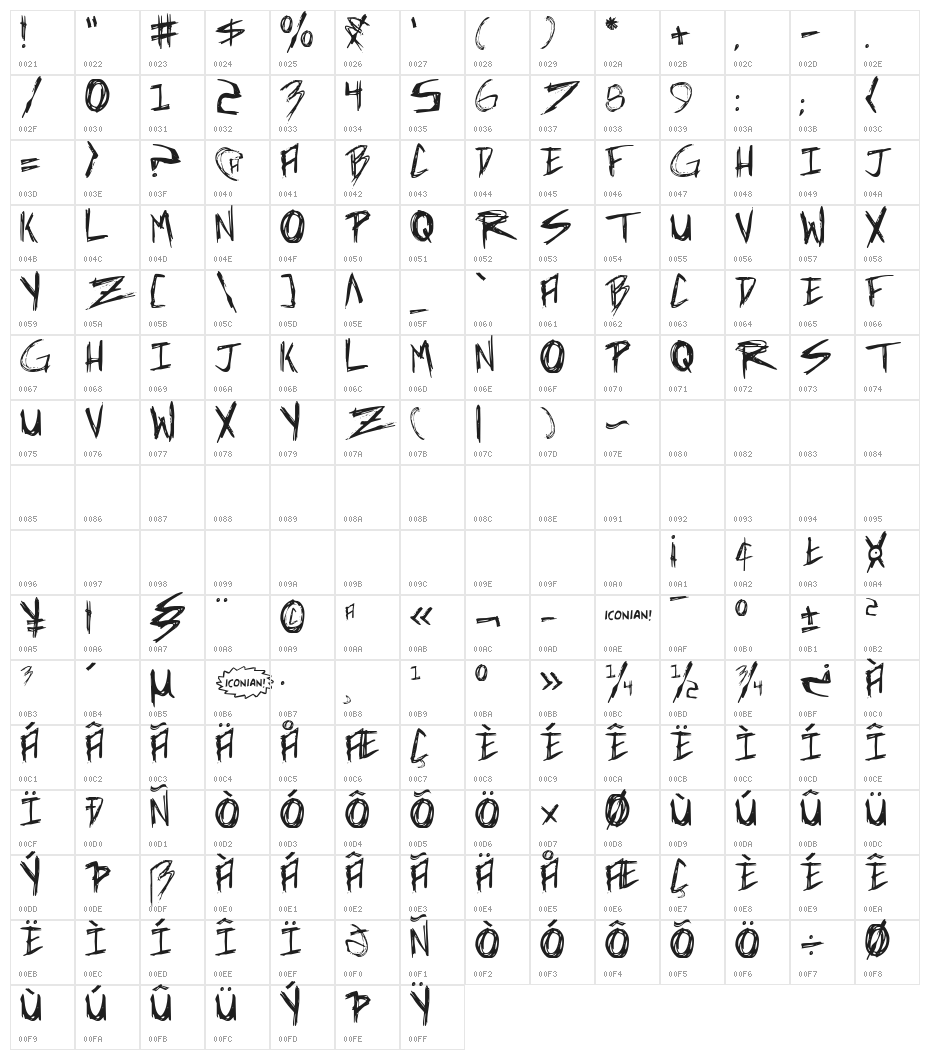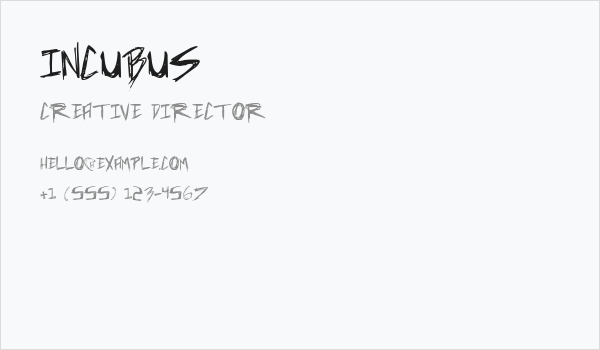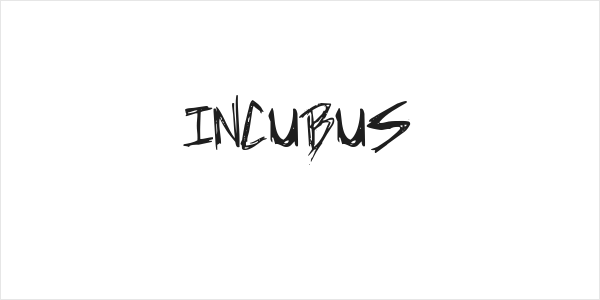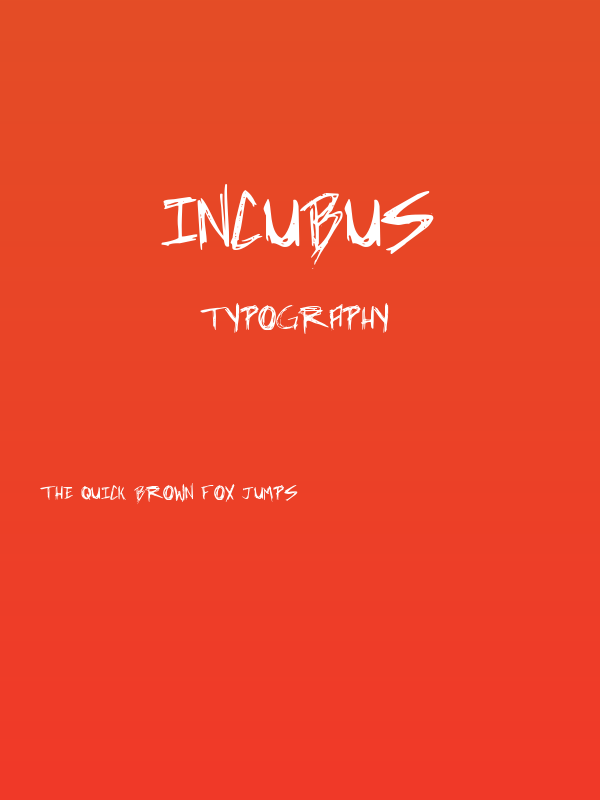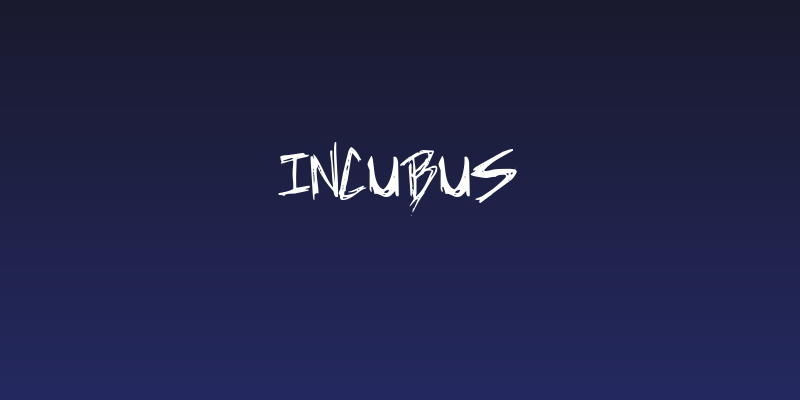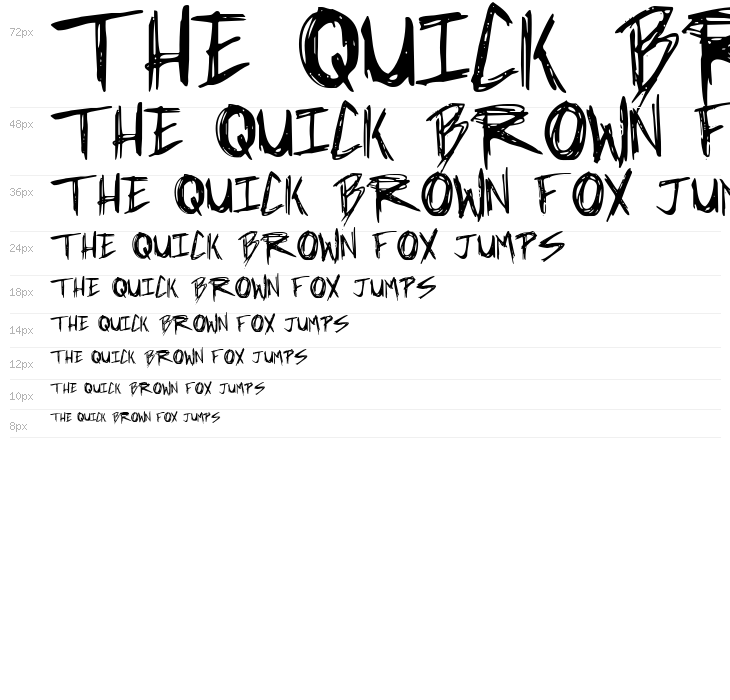
Incubus Font
Incubus Description
This font features a bold, expressive style with a hand-drawn appearance. The characters are irregular and dynamic, with strokes that vary in thickness, creating a sense of movement and energy. The uppercase and lowercase letters share a consistent aesthetic, characterized by sharp angles and rough edges. Numbers and special characters maintain the same energetic style, making the font suitable for attention-grabbing designs. The overall look is edgy and rebellious, perfect for projects that require a bold statement.
INCUBUS UPPERCASE
INCUBUS LOWERCASE
INCUBUS OTHER CHARS
| Overall Style | Modern, Edgy |
| Proposed Projects | Ideal for music album covers, posters, graffiti art, and any design needing a bold, rebellious look. |